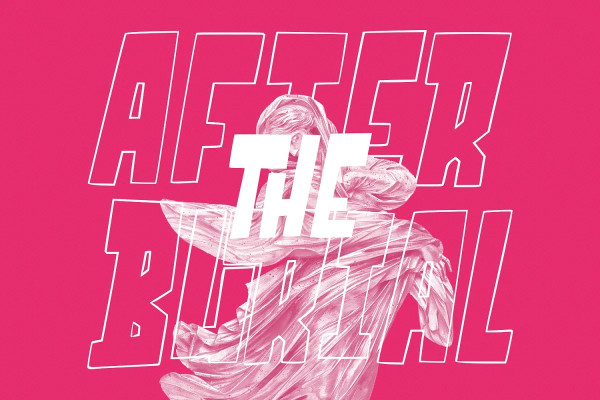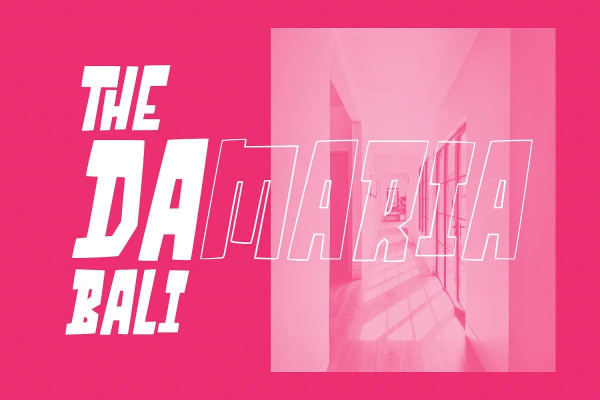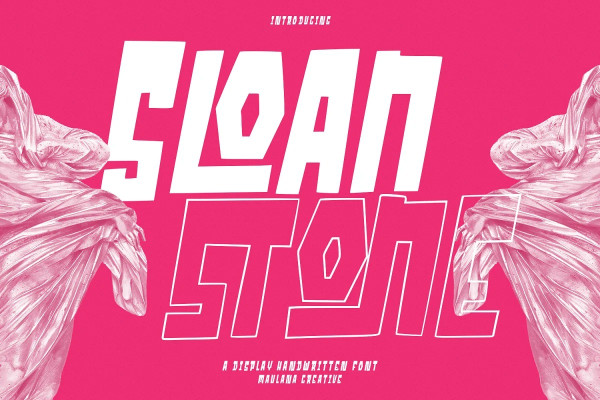
Sloanstone Font
Sloanstone Font is a handwritten display font. With bold block stroke, fun character with a bit of ligatures. To give you an extra creative work. Sloanstone font support multilingual more than 100+ language. This font is good for logo design, Social media, Movie Titles, Books Titles, a short text even a long text letter and good for your secondary text font with sans or serif. Make a stunning work with Sloanstonefont.